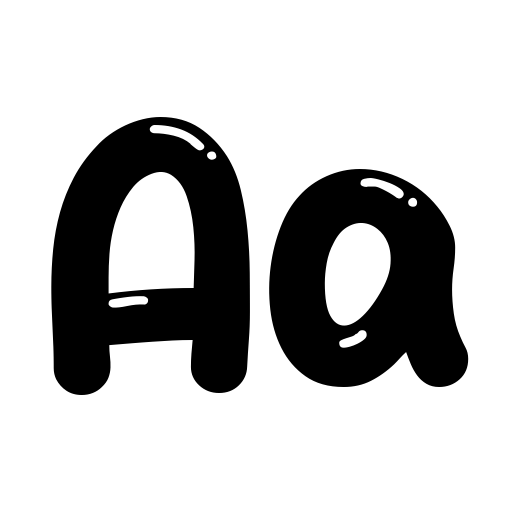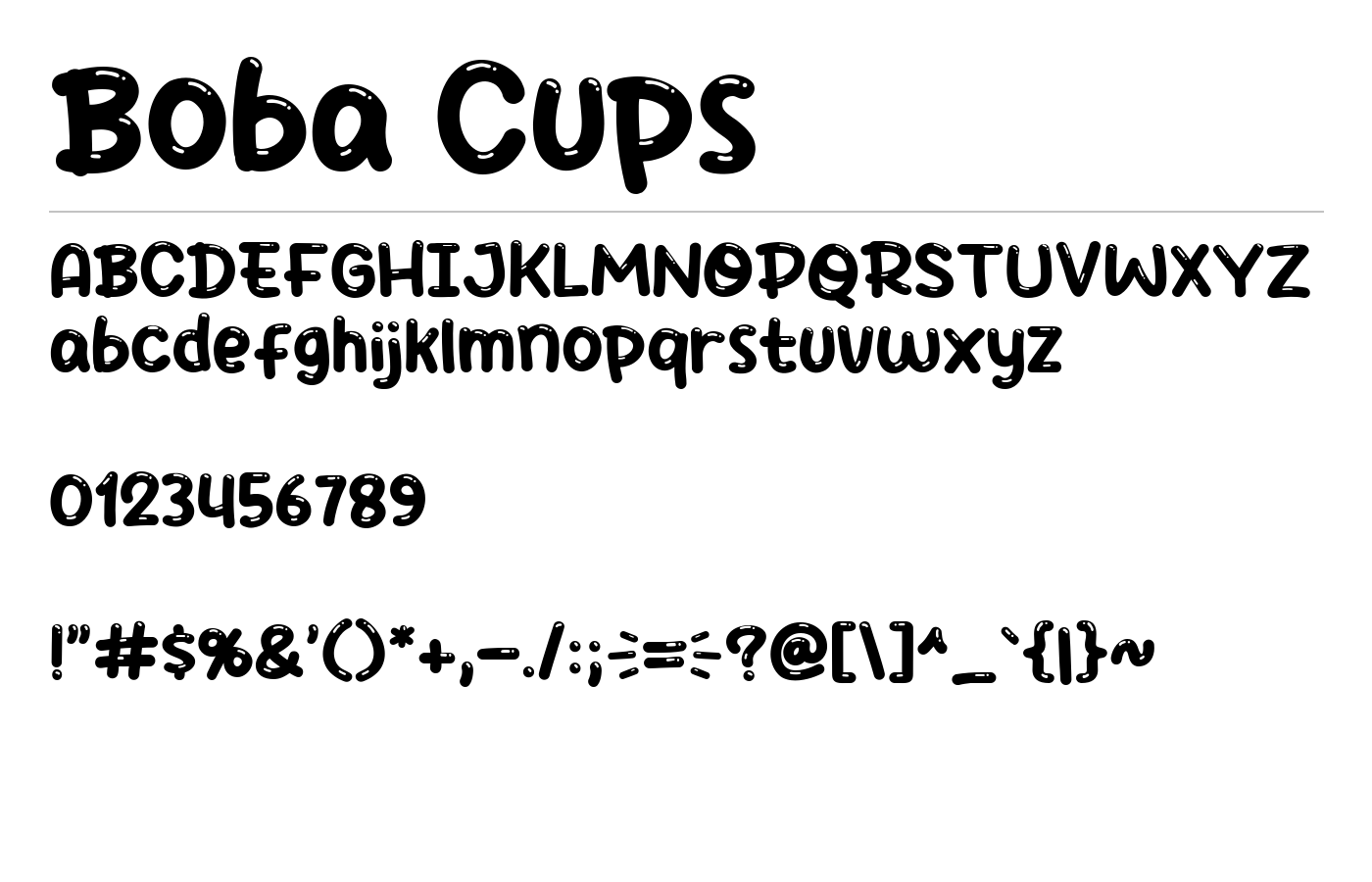
Boba Cups is a playful and bold sans serif font with a hand-drawn, bubbly style that feels fun and inviting. Its rounded letterforms, quirky details, and consistent weight make it perfect for casual, friendly branding, children's products, and creative packaging. This lively font works great in headlines and logos where a cheerful, approachable personality is desired.
Boba Cups Font
About Boba Cups Font